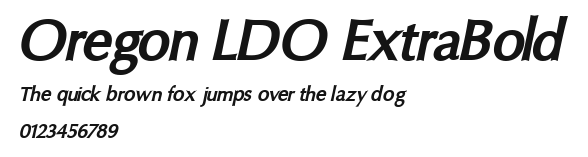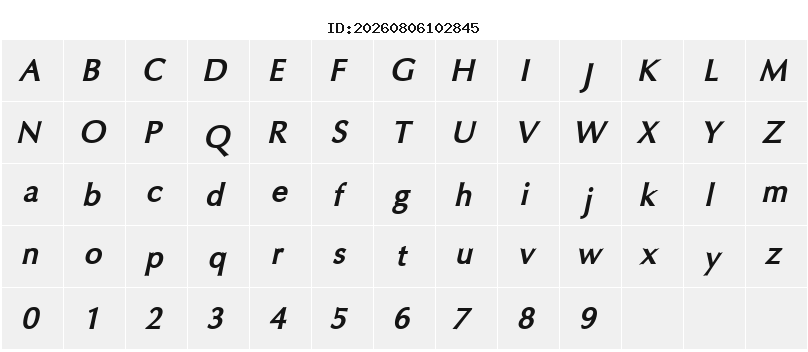
Oregon LDO ExtraBold Preview
• Font Name: Oregon LDO ExtraBold
• Font Style: Oblique
• Font ID: LDO Fonts: Oregon LDO ExtraBold Oblique: 2004
• Full Font Name: Oregon LDO ExtraBold Oblique
• PostScript Name: OregonLDOExtraBold-Oblique
• Designer: Luke Owens
• Manufacturer: LDO Fonts
About Oregon LDO ExtraBold.ttf
Oregon LDO ExtraBold.ttf is a modern, elegant sans-serif font designed for ultimate readability and visual harmony. Perfect for branding, headlines, web design, and print materials.